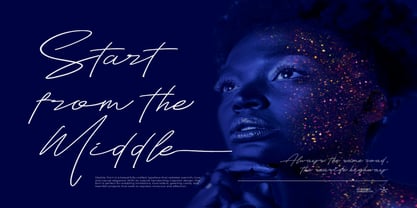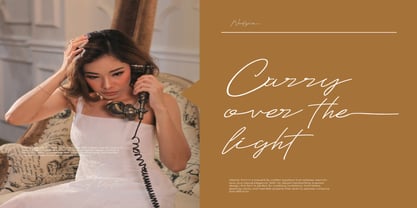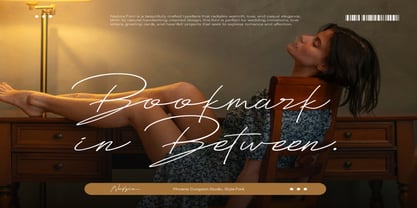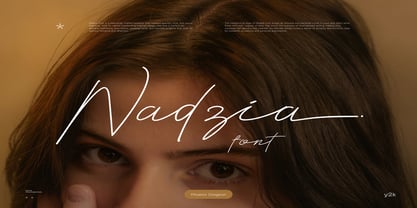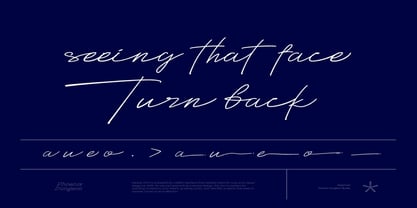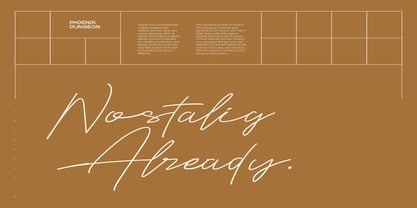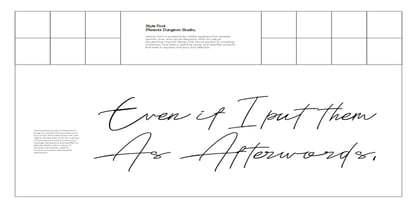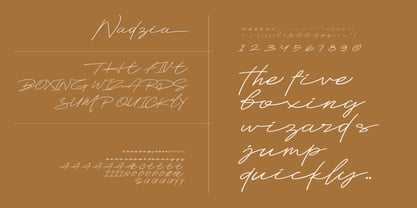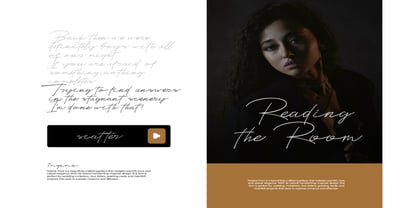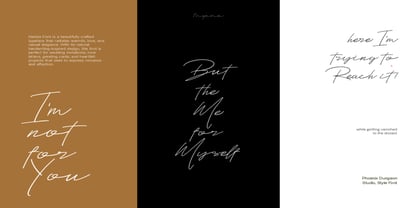
Nadzia
by Phoenix Group
The Nadzia Font Family was designed by Alif Naufal Muzakki and published by Phoenix Group. Nadzia contains 1 styles. More about this family
Nadzia Font is a beautifully handcrafted script typeface that radiates warmth, love, and casual elegance. Inspired by natural handwriting, its delicate strokes add a personal and intimate touch to any design. Perfect for wedding invitations, greeting cards, love letters, and romantic branding projects, Nadzia Font brings sincerity and heartfelt expression into your typography. Its minimalist yet graceful style makes it versatile for both modern and timeless designs.
Designers: Alif Naufal Muzakki
Foundry: Phoenix Group